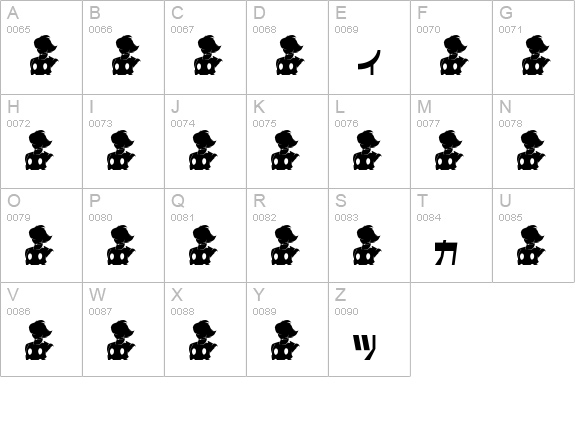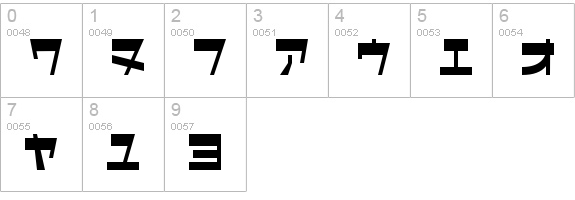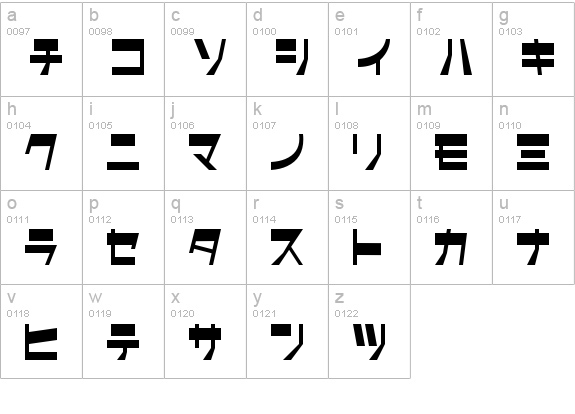
I2CyborgClassic Font Details
The I2CyborgClassic font is a stunning display font that combines futuristic elements with a classic touch. This font is perfect for creating eye-catching designs, whether for posters, logos, or branding projects. With its sleek and edgy appearance, I2CyborgClassic captures the essence of technological advancement and innovation. Each letter is carefully crafted to embody a sense of strength and precision, making it ideal for projects that require a bold statement. What sets I2CyborgClassic apart is the fact that it is freely available to download at FontsMarket.com. This means that designers and enthusiasts alike can easily access this incredible font without any limitations. Whether you are a professional graphic designer or simply someone who enjoys experimenting with typography, I2CyborgClassic is a must-have addition to your font collection. This font is designed with versatility in mind, allowing you to use it in a variety of creative ways. From creating attention-grabbing headlines to adding a touch of modernity to your designs, I2CyborgClassic offers endless possibilities. The clean and crisp lines of I2CyborgClassic make it highly legible, ensuring that your message is conveyed with clarity and impact. Whether you are designing a website, creating digital artwork, or even printing materials, this font will consistently deliver exceptional results. Embrace the future with I2CyborgClassic, a font that seamlessly blends classic aesthetics with contemporary design. Download this font for free at FontsMarket.com and embark on a journey of creativity and innovation. Let I2CyborgClassic elevate your designs and captivate your audience with its unique and captivating style.